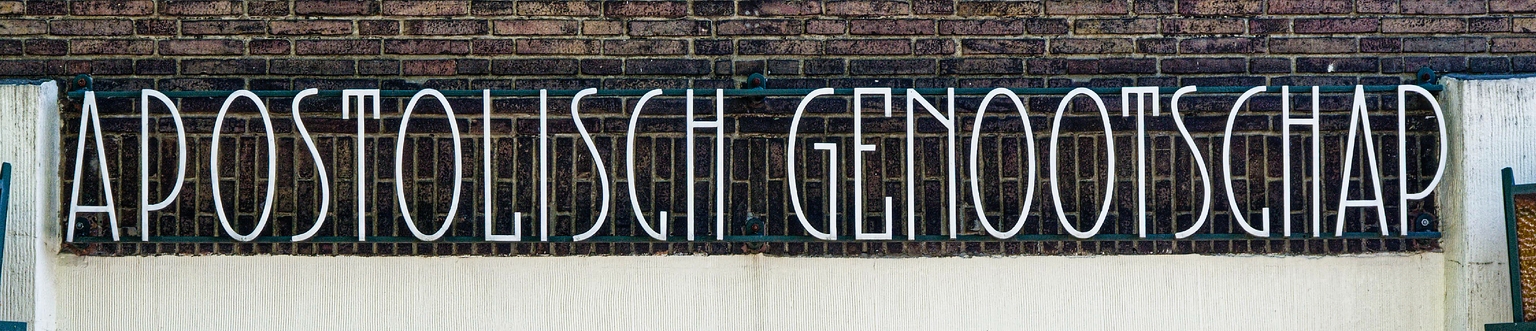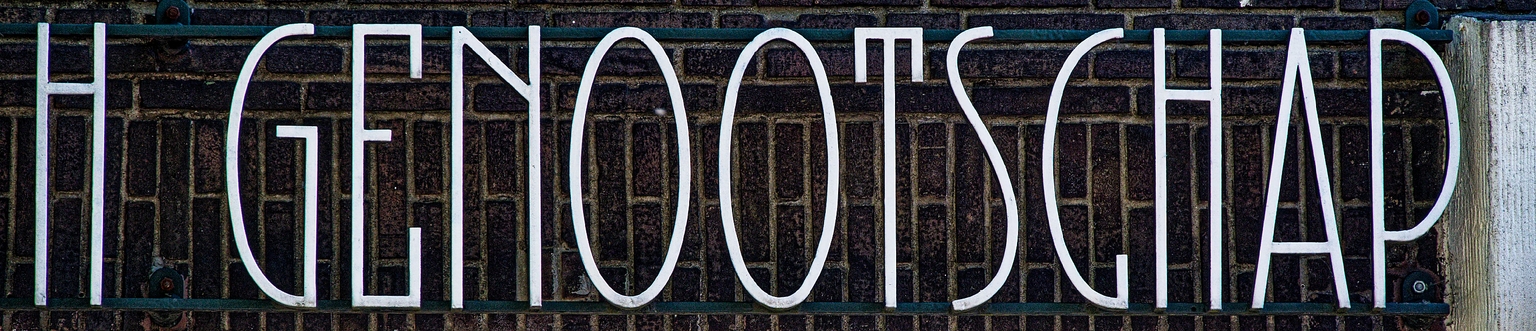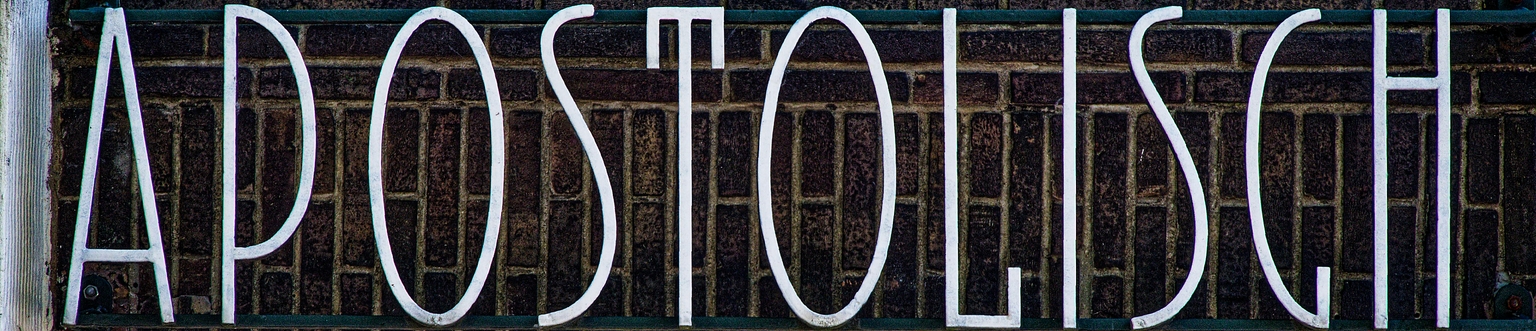
Genootschap
Genootschap is a typeface strongly inspired by the lettering on the façade of the Apostolic Genootschap Watergraafsmeer building, located in the Galileiplantsoen district of Amsterdam, the Netherlands.
This beautiful building, in a style characteristic of the Amsterdam School, was designed by architect Cornelis Kruyswijk (1884–1935), who is possibly also the creator of the lettering.
These letters stand out for their typographic finesse and proportions—different from the alphabets typically chosen by architects of that school, who tended to prefer modular and much bolder letterforms.
In early 2025, Ramiro Espinoza took numerous photographs of the building and then digitized and adapted the letterforms to create a working typeface. The result is a striking design with clear influences from the Dutch interwar avant-garde architectural movements and Jugendstil.
This typeface is well-suited for distinctive logos, clothing brands, movie posters, book covers, museum catalogs, websites, and brochure or magazine headlines.